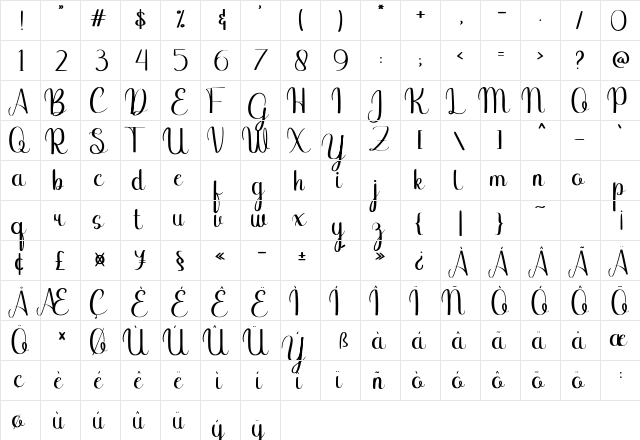
Binttang Selfianto Regular
Design Context for Binttang Selfianto Typeface
Binttang Selfianto is a composed and adaptable typeface that performs quietly and consistently across a wide range of design contexts.